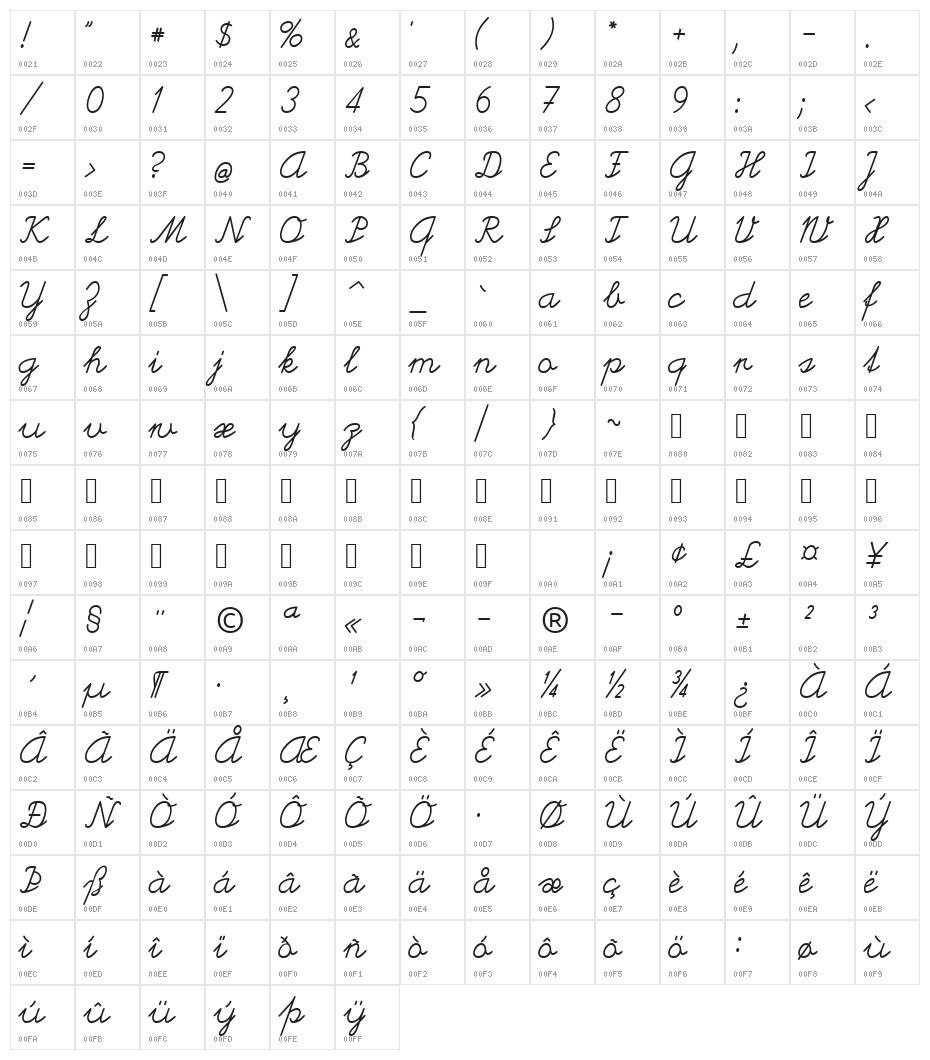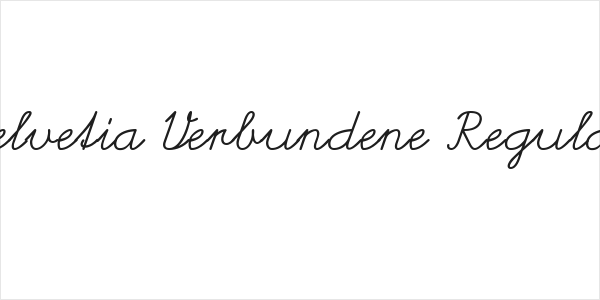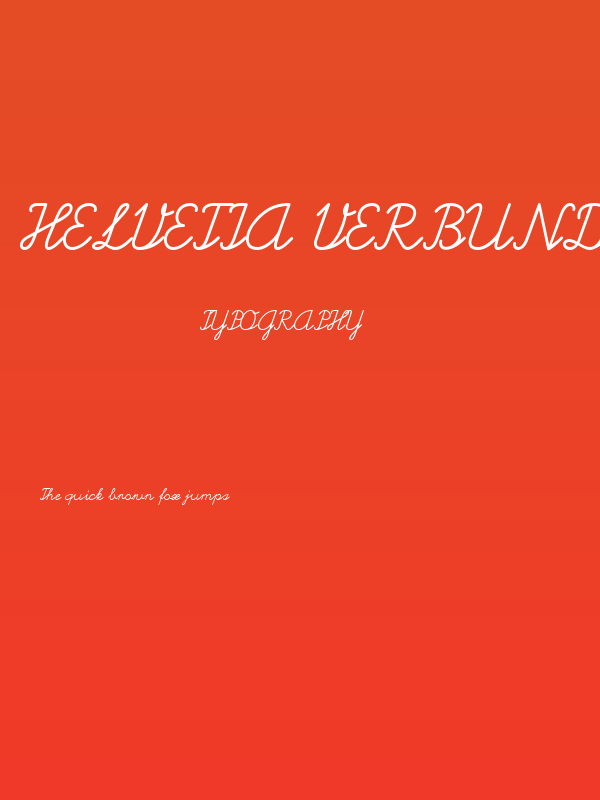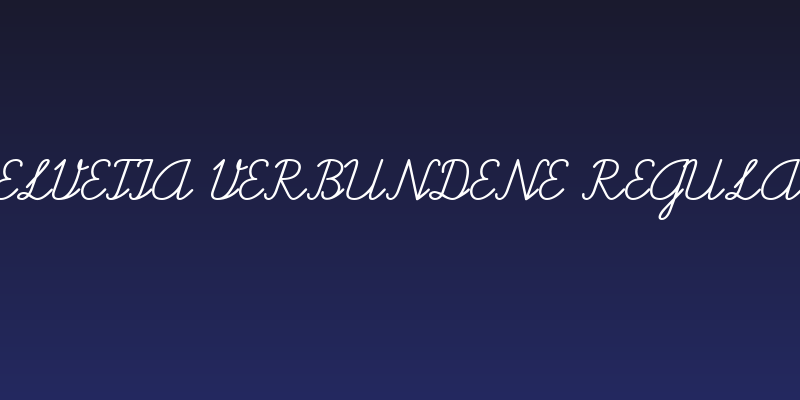
Helvetia Verbundene Regular Font
Helvetia Verbundene Regular Description
This font features a fluid and elegant cursive style, characterized by its smooth, flowing lines and connected letters. The uppercase letters maintain a consistent height, while the lowercase letters exhibit a slight slant, enhancing the script's dynamic appearance. The numerals are clear and legible, matching the overall cursive theme. Special characters are seamlessly integrated, maintaining the font's cohesive look. The design is both sophisticated and approachable, making it suitable for a variety of creative applications.